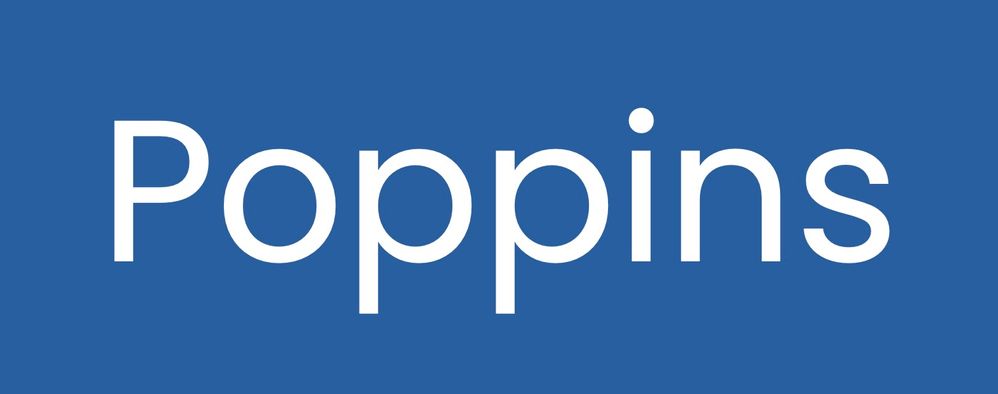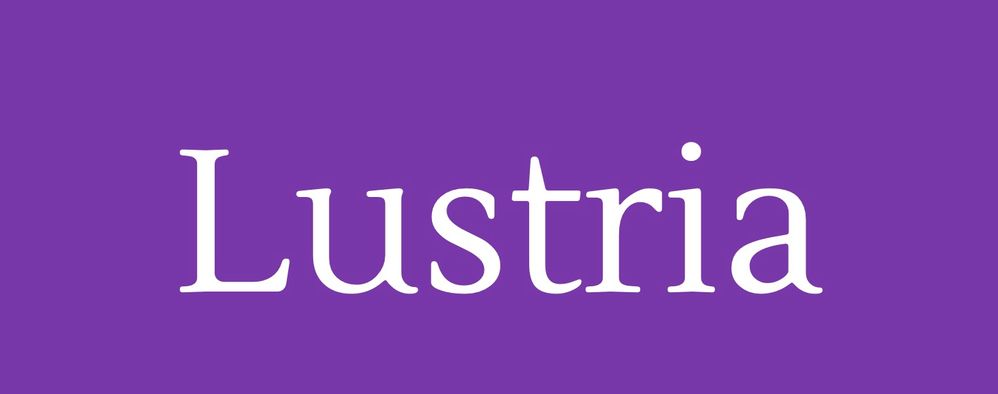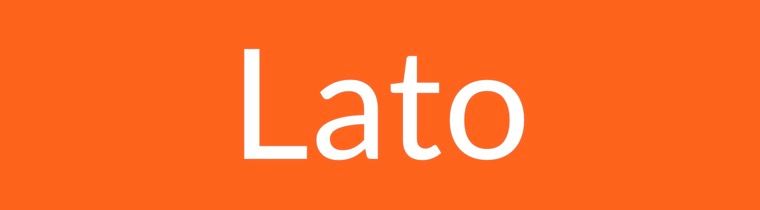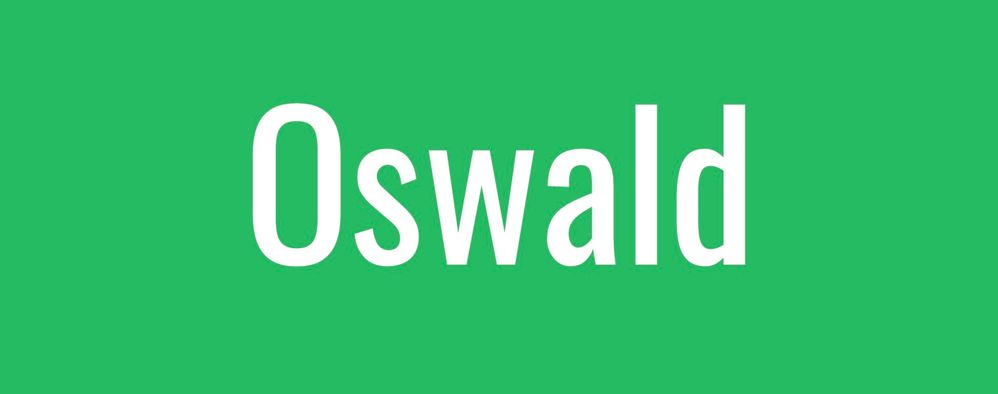
Our Four Favorite Free Fonts for E-Learning
As e-learning designers, we each have a few favorite go-to fonts that we know we can rely on time and time again. While they're typically tried, tested, and true, if you only use a handful of fonts, your work can start to look stale.
But there are so many options out there, it can be hard to know which ones to choose. That’s why we thought we’d go ahead and share our four favorites. What’s so great about these fonts? Well, not only are they super-sleek and available for free, but they’re also accessibility- and translation-friendly. What could be better than that?
Ready to give your training some fresh impact? Check out these fabulous fonts!
Lato
Lato is the third most popular font on Google Fonts—behind only Roboto and Open Sans—for good reason. It’s a no-nonsense, sans-serif font with enough character that it’s not boring. Originally designed for a Polish bank, it comes in nine different weights and features clean lines while retaining an inviting, handwritten style. The italicized characters have a bit more whimsy, but overall this is a fantastic all-purpose font that can easily pull duty in titles, headers, and body text.
Poppins
Creating content for multiple languages? Look no further than Poppins! The Indian Type Foundry developed it specifically to be ultra-compatible with all languages. Don’t worry about various font weights or modified characters making your content unreadable once it’s translated. Poppins is laser-focused on maintaining character geometry so that it’s always legible, no matter the language.
Lustria
Lustria is a lighter-weight font that’s great for all kinds of applications. Inviting and pressure-free, this font scales nicely on larger displays or when zoomed in on mobile devices. The only downside of this option is that it comes in just a single font weight. But while it might not be as versatile for multiple design elements, it’s an absolute star when it comes to presenting large blocks of content without wearing out your learners.
Oswald
If you need a bold, Gothic-style font, look no further than Oswald. Presented in a variable-weight font package, it’s incredibly easy to apply to titles and headers, really anywhere you want your text to stand out. This take on the “Alternate Gothic” font was created with an eye toward digital presentations. Creating content for the screen? Then Oswald’s your font. Just keep in mind that because the spacing between each character (or kerning) is a bit tight, accessibility is an issue when used at smaller point sizes. For this reason, it’s better to use Oswald where it’s large and can provide the most impact.
Finding Future Favorite Fonts
Fonts are often overlooked, but they’re an essential part of your design. Keeping your font selection current not only ensures that your learning looks fresh but makes it more accessible. And if you build courses in multiple languages, the right font choice will ensure you don’t run into issues during the translation process.